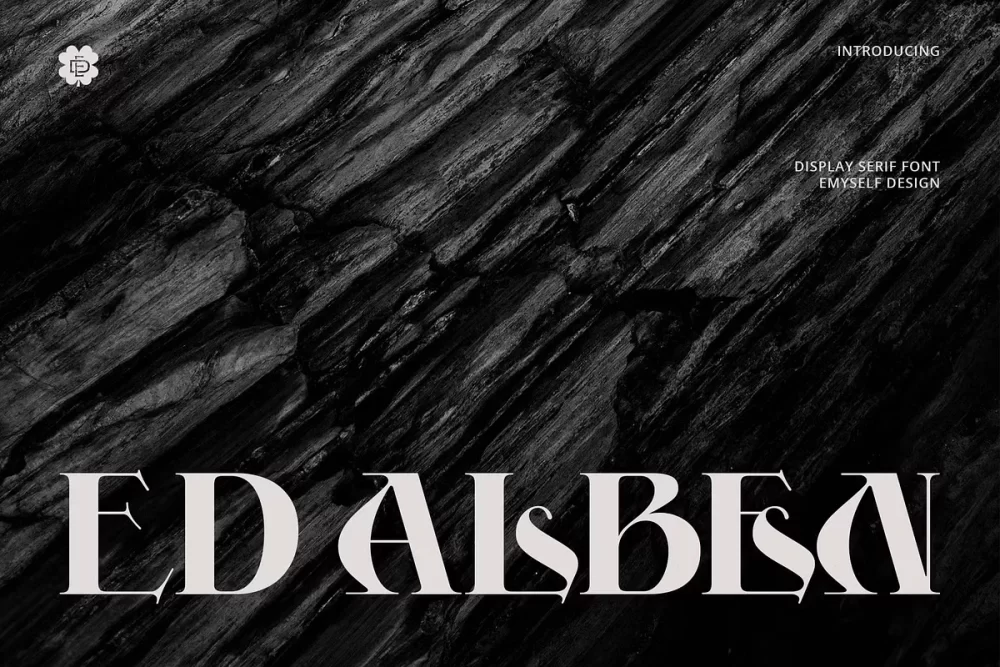
ED Alben Font
ED Alben is a serif display font with a classic elegant style. This font design is inspired by the Kangaroo alphabet, 1901 from Zaner, C. P. (Charles Paxton) which is packaged in a more modern style but still retains its classic side.
This font has several features such as ligatures, alternative characters, and multi-language support. It is perfect for your design needs such as magazines, books, posters, packaging designs, logos, social media designs, t-shirts, and more.